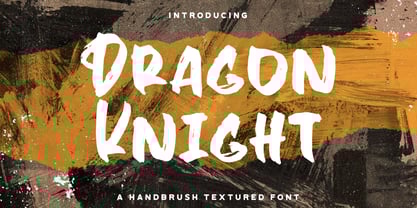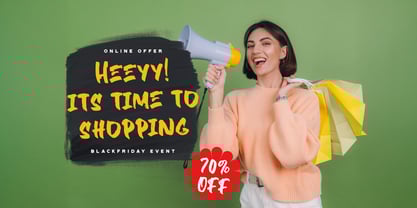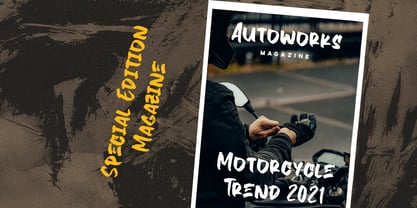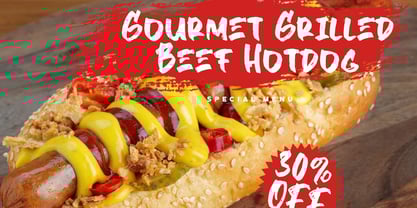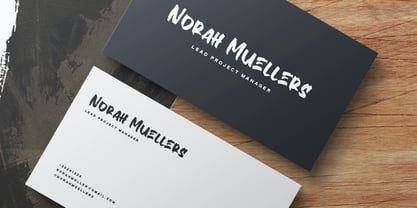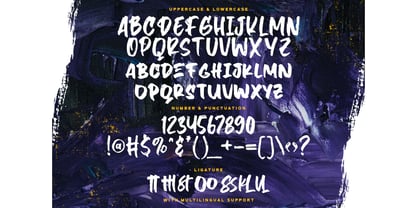
Dragon Knight
by Stringlabs Creative Studio
The Dragon Knight Font Family was designed by Virgiawan Listanto and published by Stringlabs Creative Studio. Dragon Knight contains 1 styles. More about this family
Unleash power and energy with Dragon Knight, a textured brush font that roars with attitude. Inspired by legendary warriors and fierce fantasy, this font delivers raw strokes, gritty details, and a dynamic look that demands attention. Perfect for posters, gaming titles, apparel, and bold branding, Dragon Knight adds a heroic, hand-drawn punch to any project.
Designers: Virgiawan Listanto
Foundry: Stringlabs Creative Studio